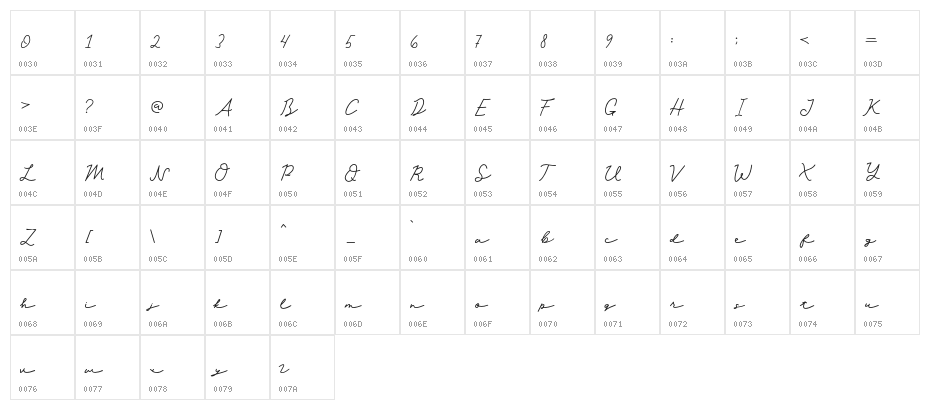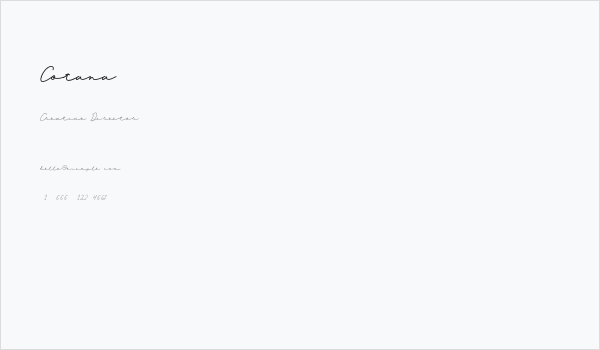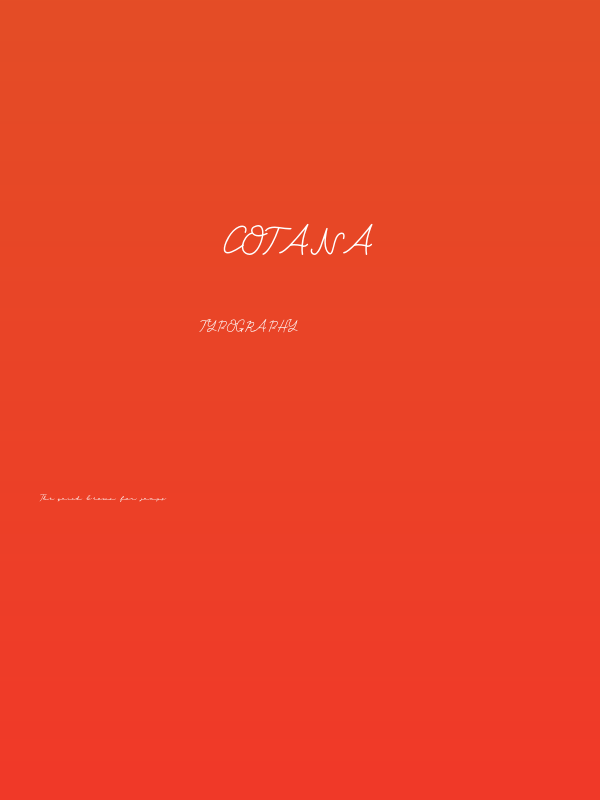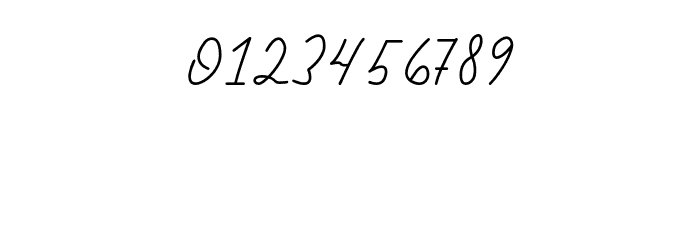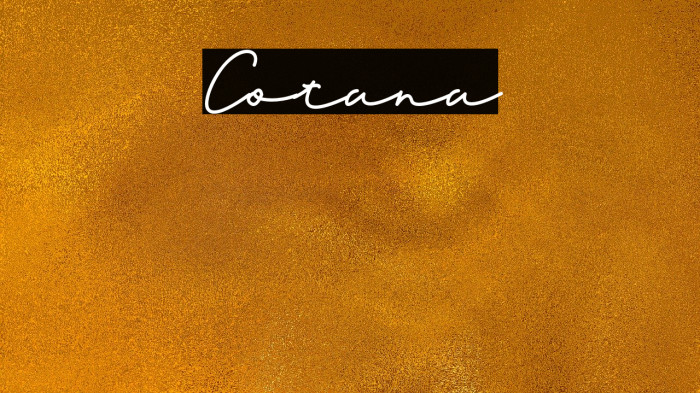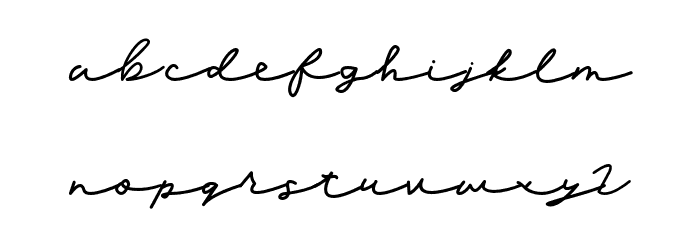
Cotana Font
Cotana Description
This font features a flowing, cursive style with elegant, connected strokes that mimic the fluidity of natural handwriting. The uppercase letters are slightly more structured, maintaining a balance between formality and casual flair. The lowercase letters are smoothly connected, enhancing the script's readability and charm. The numerals follow the same cursive style, offering a cohesive look across all characters. The overall design is graceful and sophisticated, making it suitable for projects that require a personal touch.
| Proposed Projects | Ideal for wedding invitations, personal branding, greeting cards, and elegant logos. |